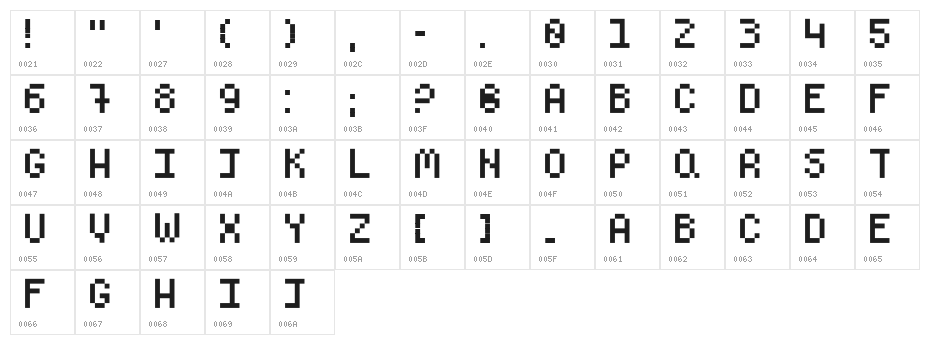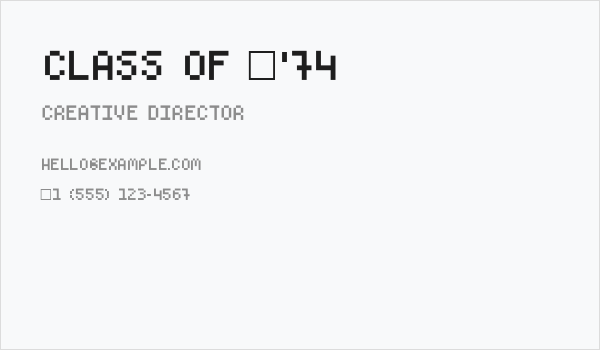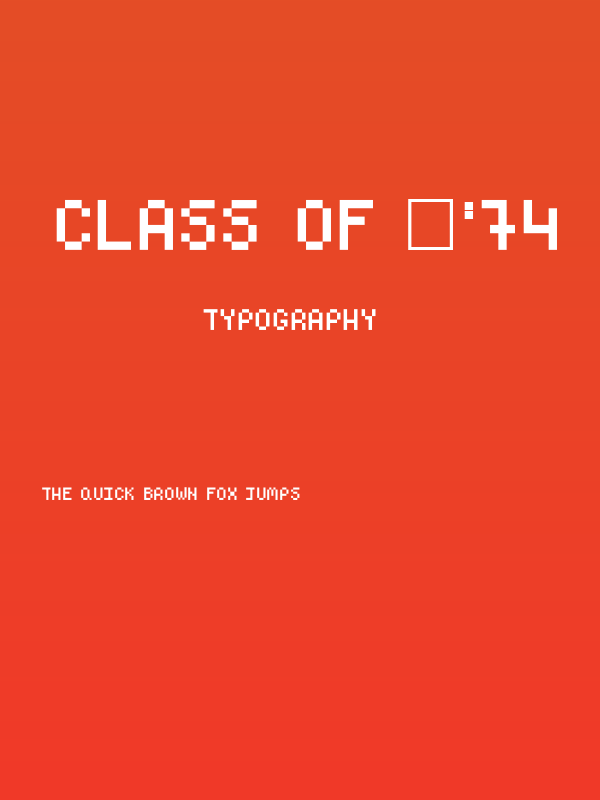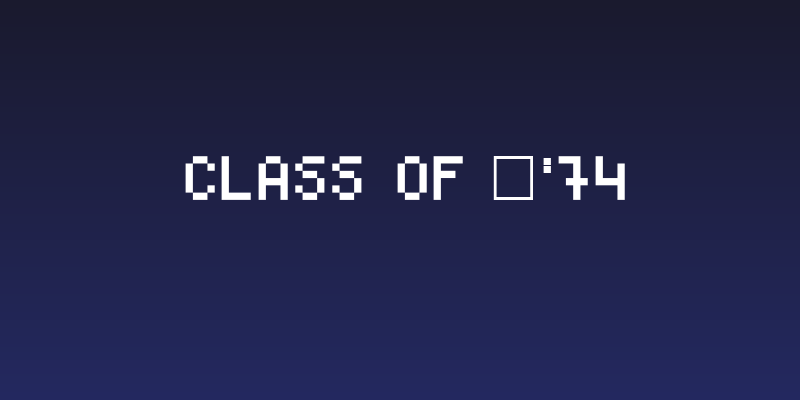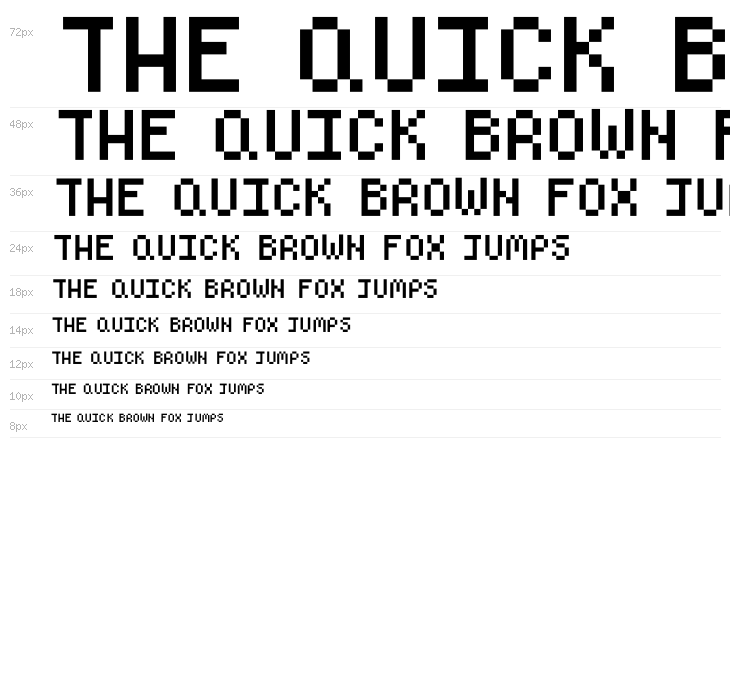
Class of '74 Font
Class of '74 Description
This font features a pixelated, blocky design reminiscent of early digital displays and retro video games. Each character is constructed with a grid-like precision, giving it a distinctly digital and geometric appearance. The uniformity in stroke width across all characters contributes to its cohesive and structured look. The font's simplicity and clarity make it highly legible, even at smaller sizes. It evokes a sense of nostalgia, ideal for projects that aim to capture a vintage or tech-inspired aesthetic. The characters are evenly spaced, enhancing readability and maintaining a consistent visual rhythm.
| Proposed Projects | Ideal for retro video game designs, digital art projects, tech-themed posters, and nostalgic branding. |